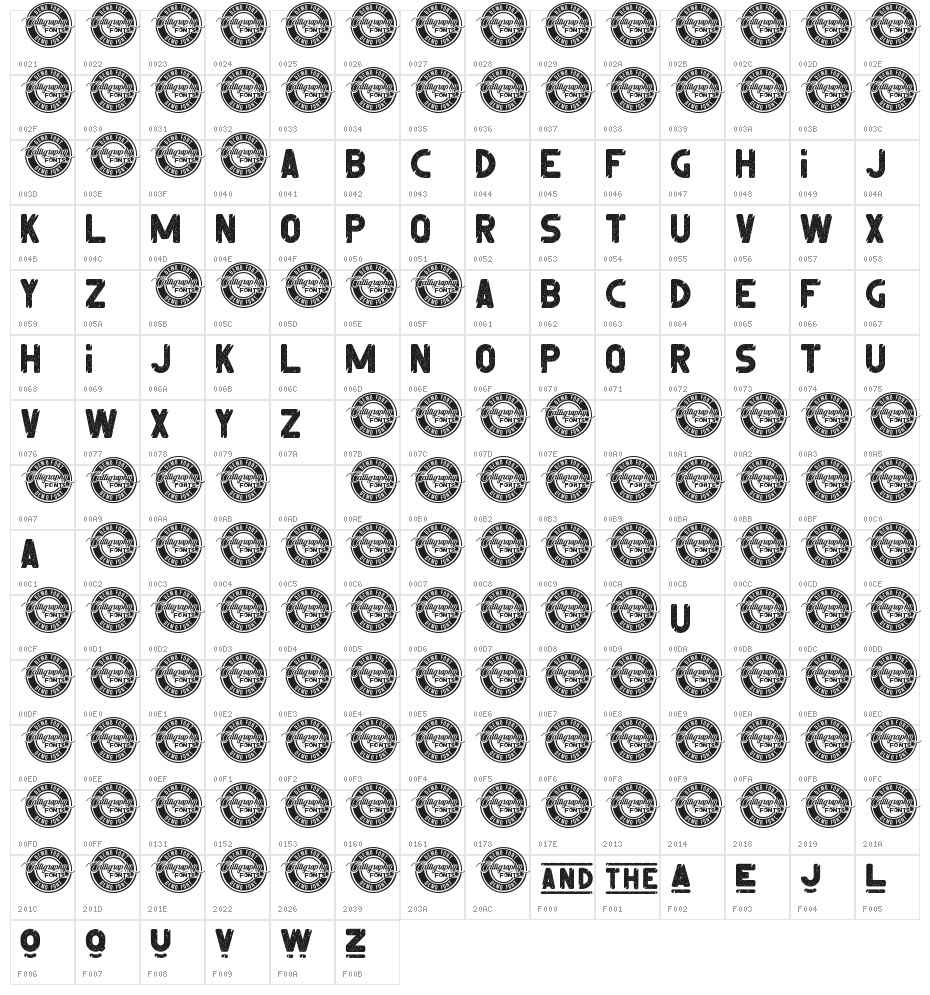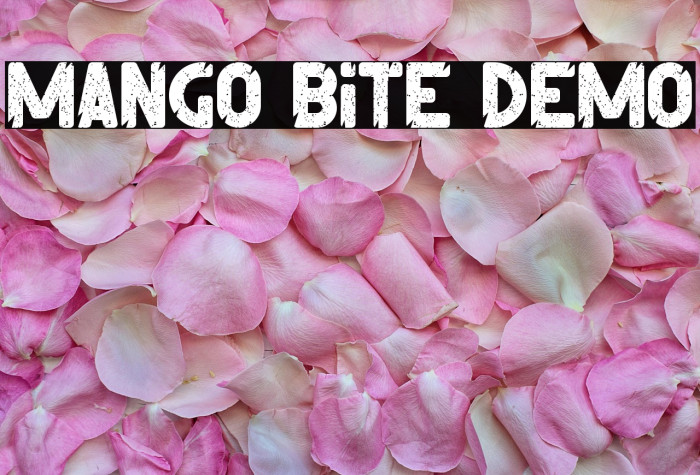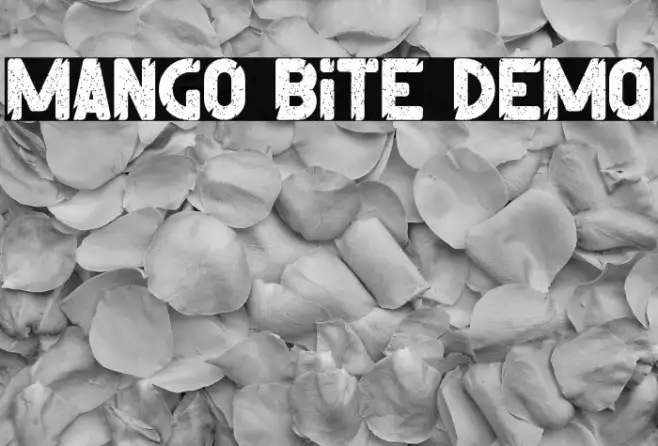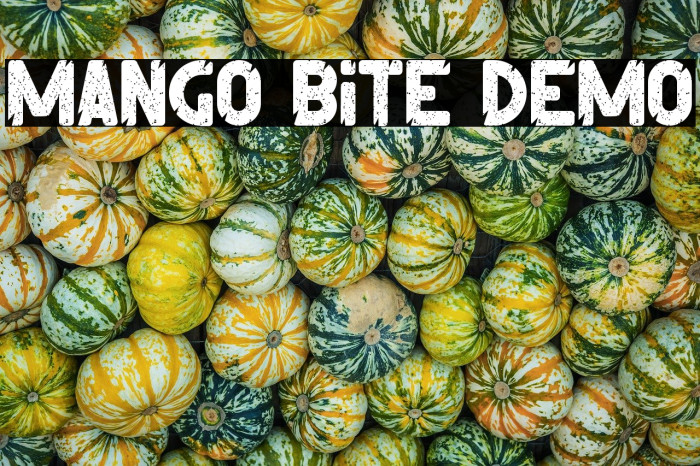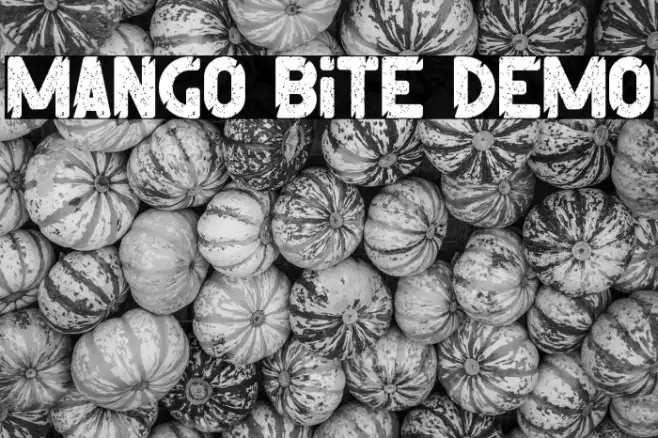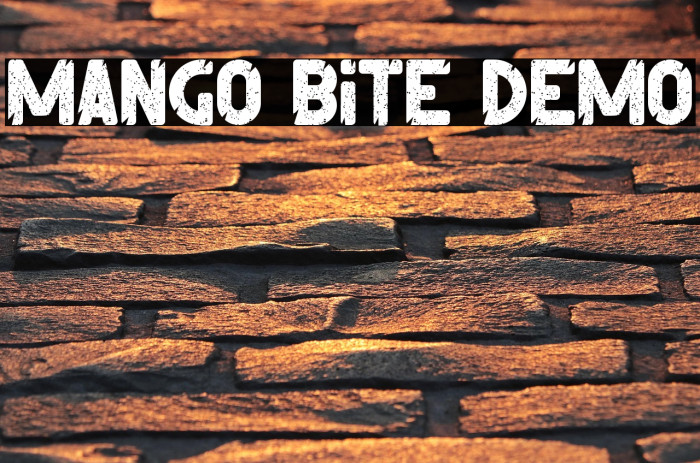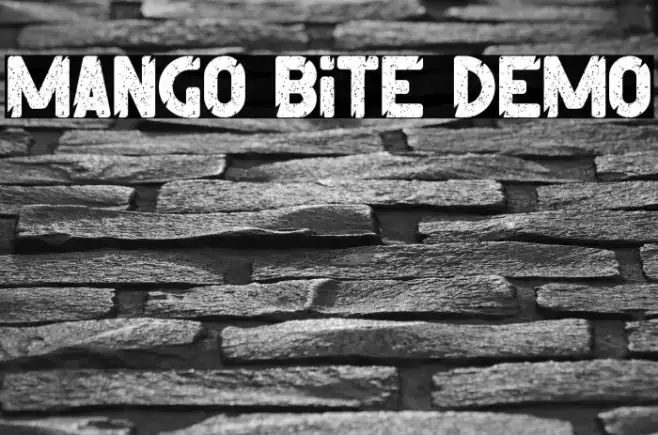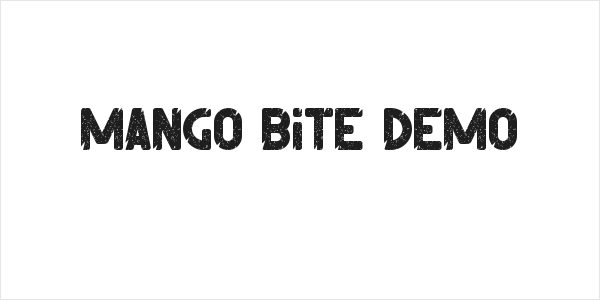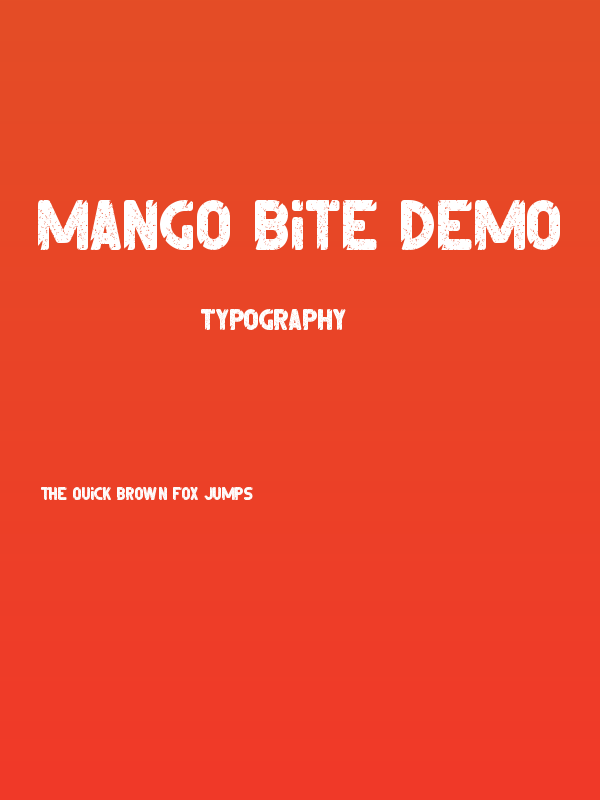
Mango Bite Demo Font
Mango Bite Demo Description
This font features a bold, distressed style with a textured appearance that gives it a rugged and vintage feel. The uppercase letters are prominently displayed with a consistent thickness, while the distressed texture adds character and a sense of age. The font's design is reminiscent of old signage or vintage posters, making it ideal for projects that require a touch of nostalgia or a handcrafted look. The characters are well-defined, ensuring readability despite the textured effect. This font is perfect for creating eye-catching headlines, logos, or branding materials that need to stand out with a unique and bold statement.
| Proposed Projects | Ideal for vintage posters, retro branding, logos, and eye-catching headlines. |